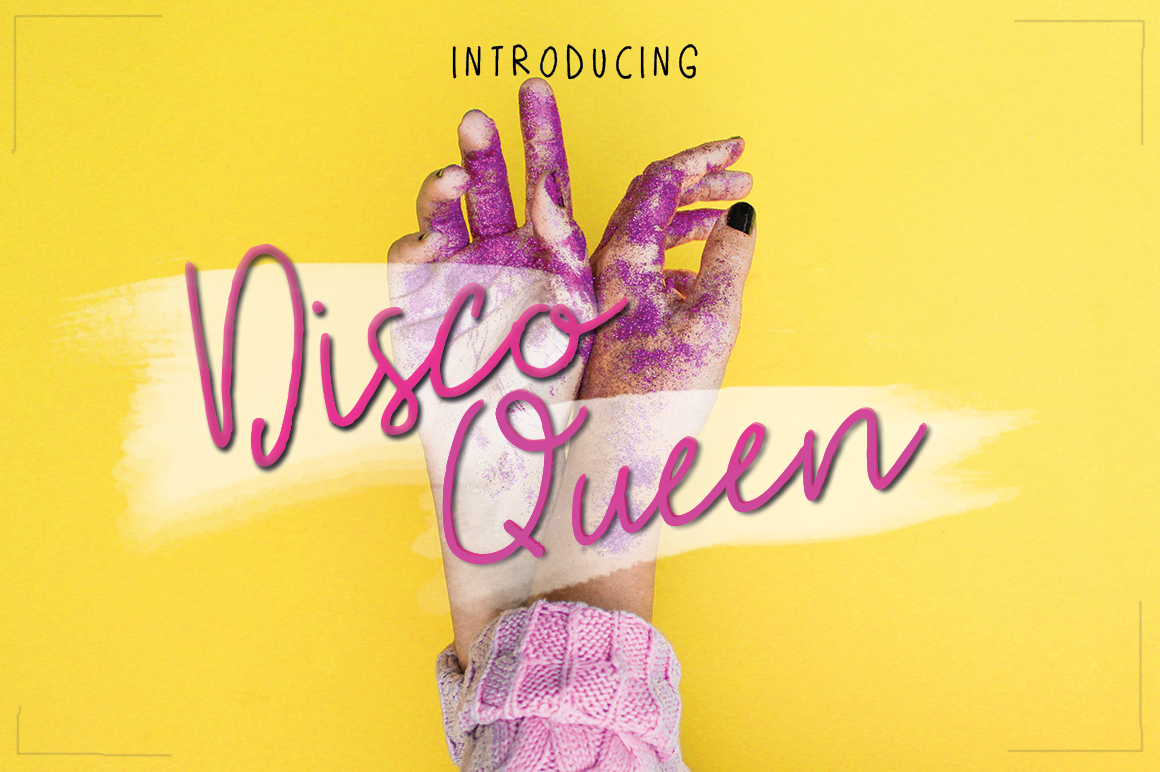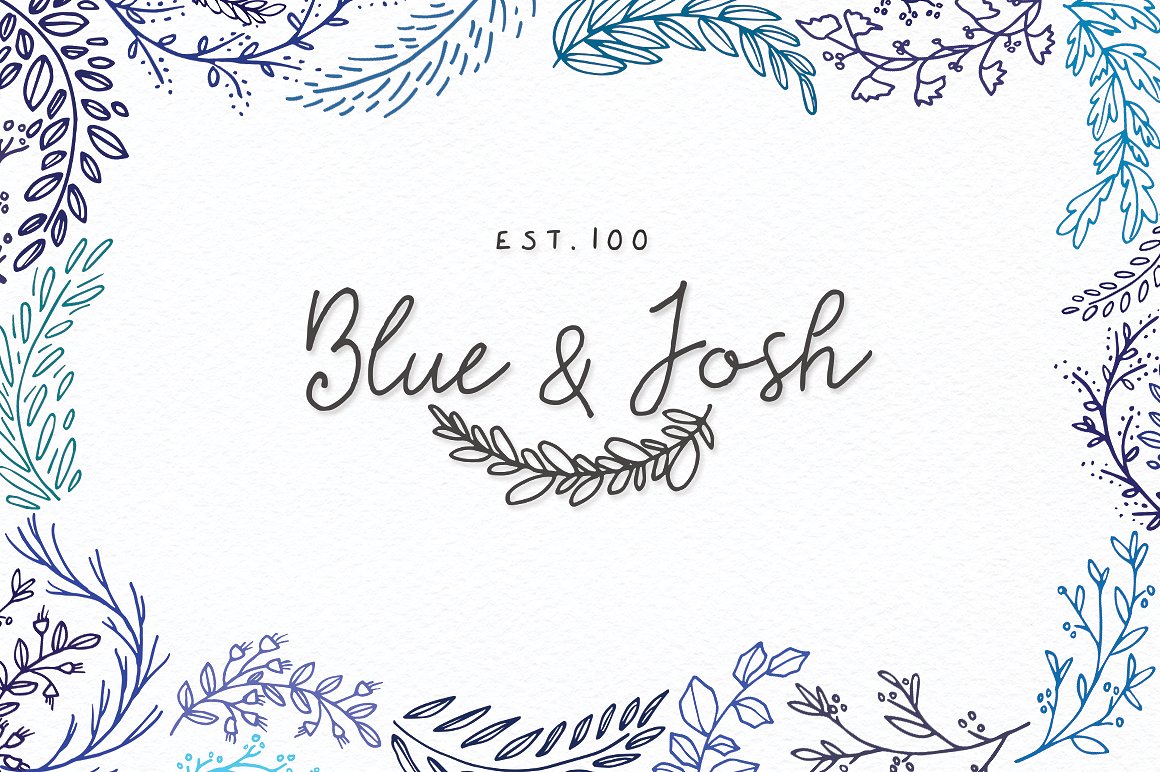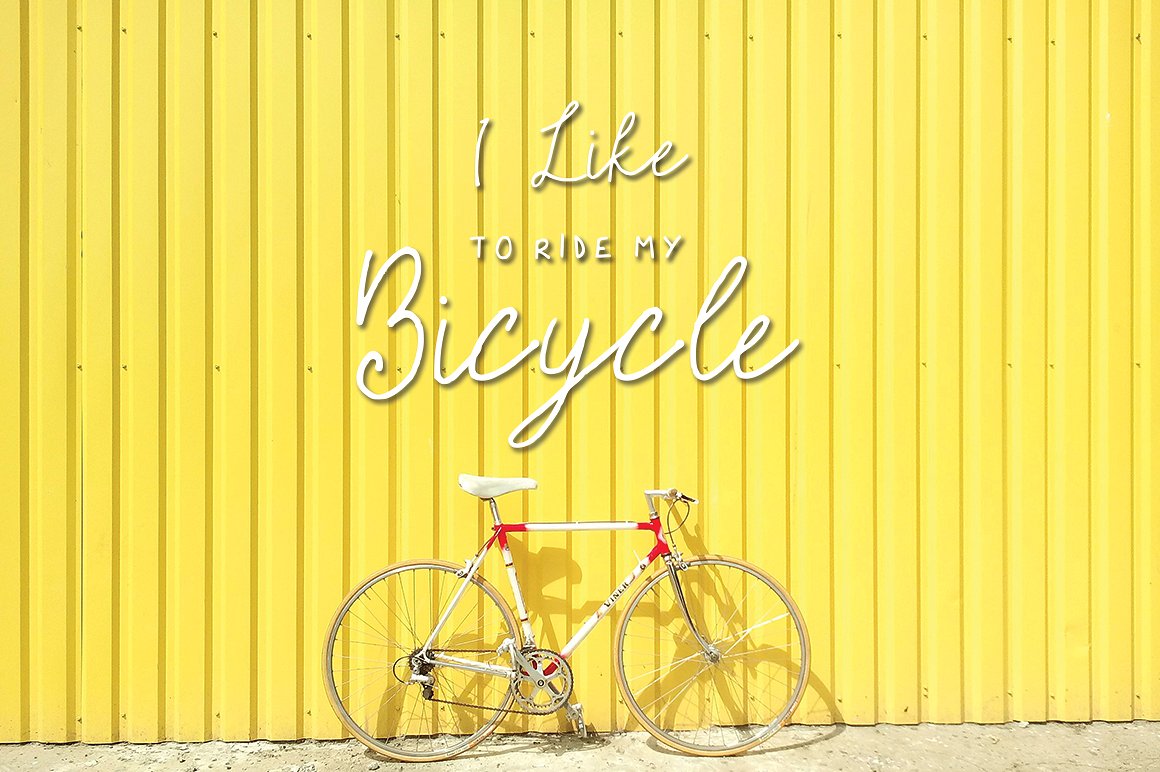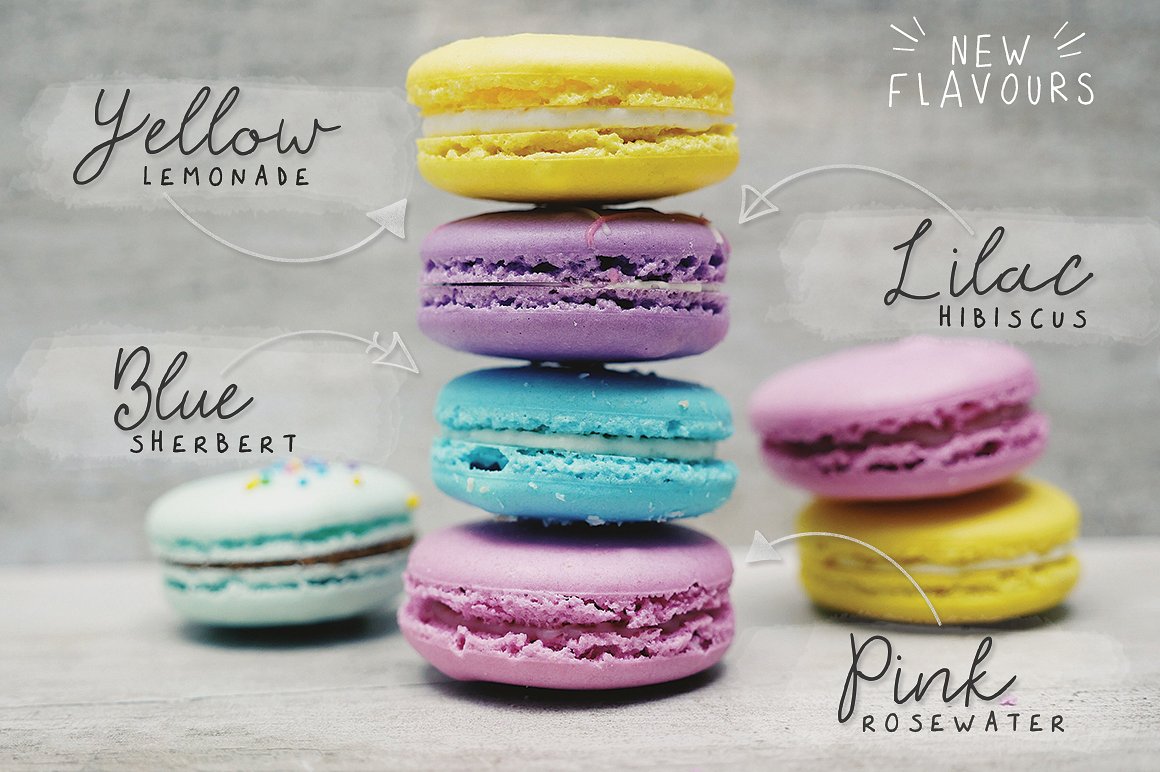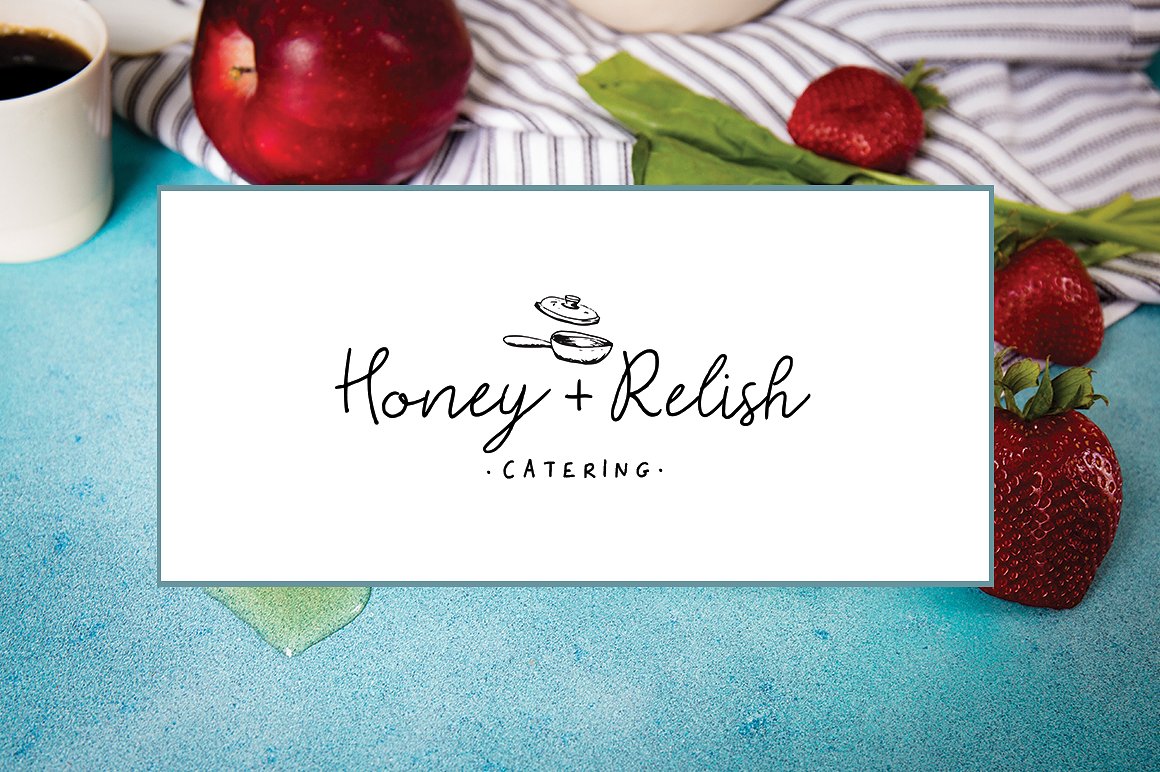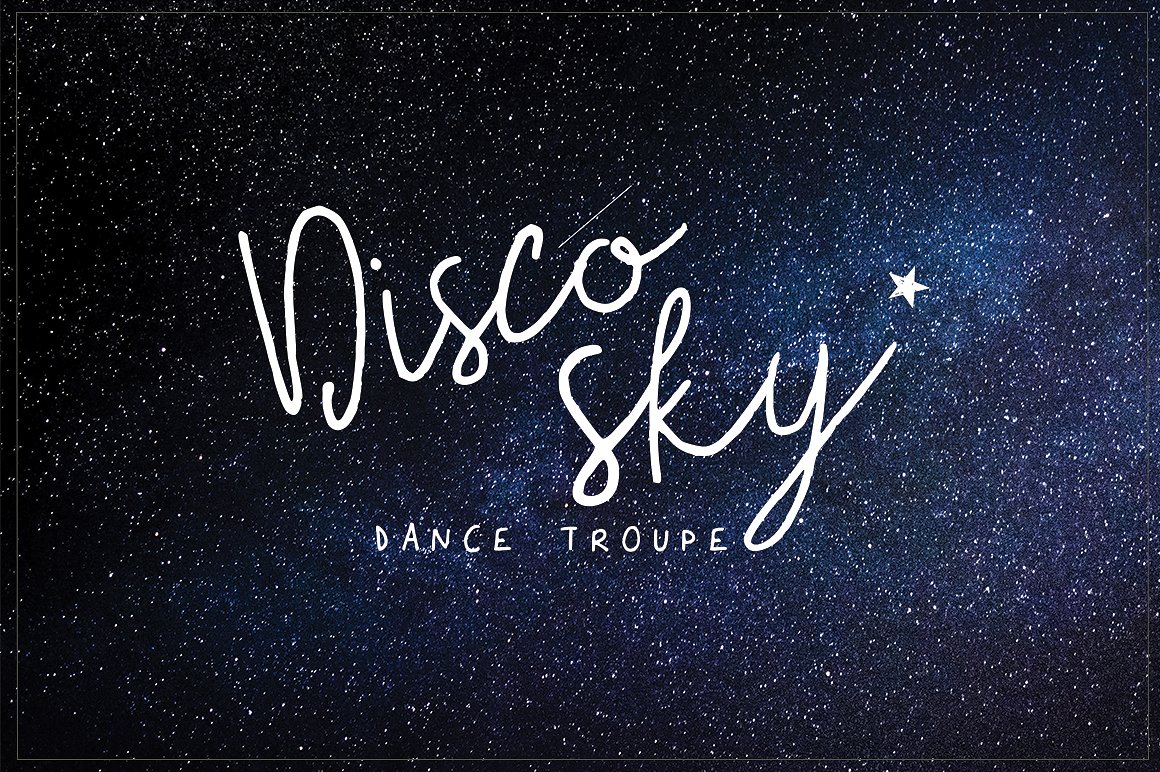
Disco Queen Font
About Disco Queen Font
Disco Queen is a fun, fabulous new font that just loves to be the centre of attention! Use it for quotes, headers or more. This a completely versatile script.